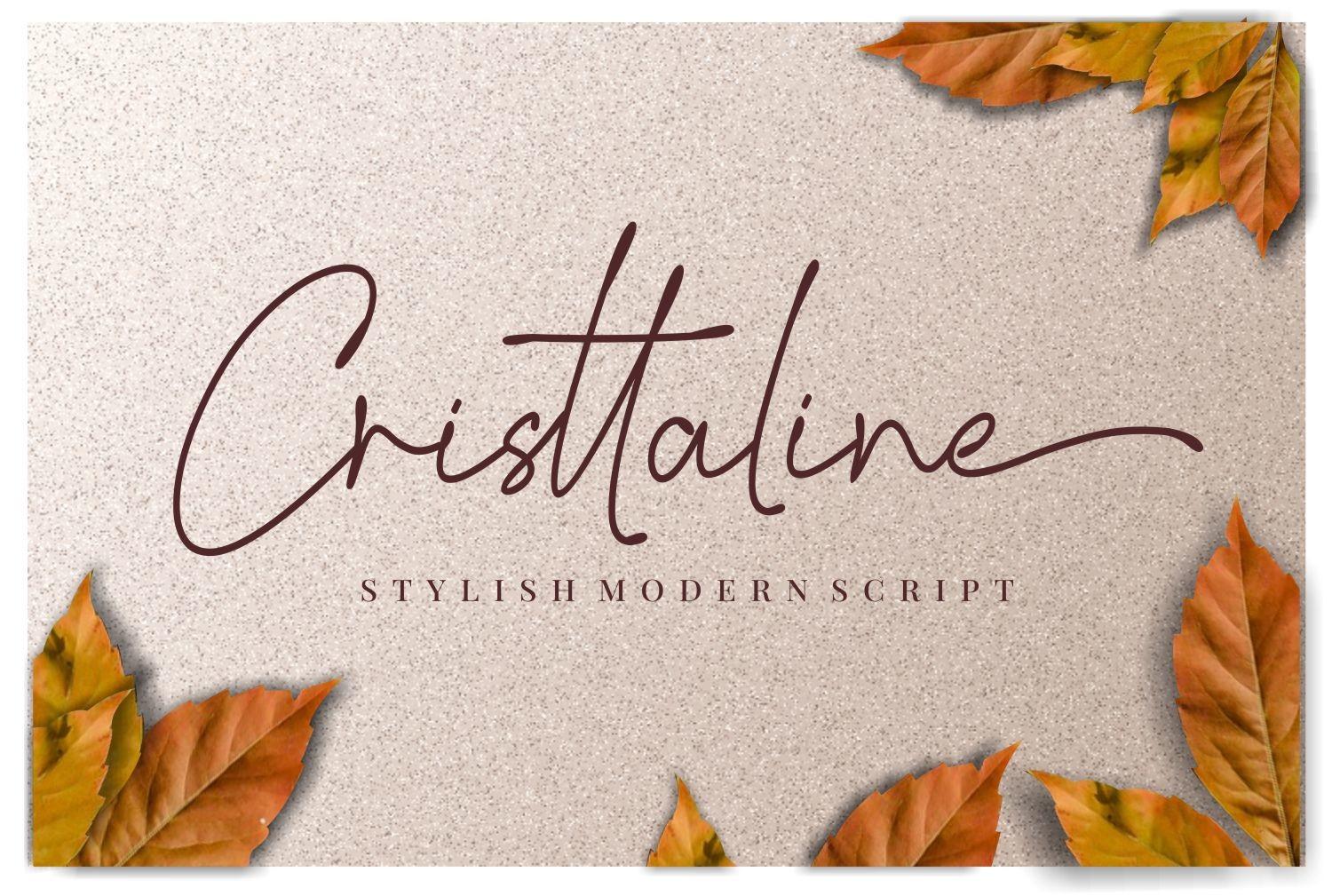
Cristtaline Font Description
Cristtaline is a modern script font with very fine and elegant characters. It gives off luxurious vibes which make this typeface perfect for your most exquisite projects! This font is PUA encoded which means you can access all of the glyphs and swashes with ease!